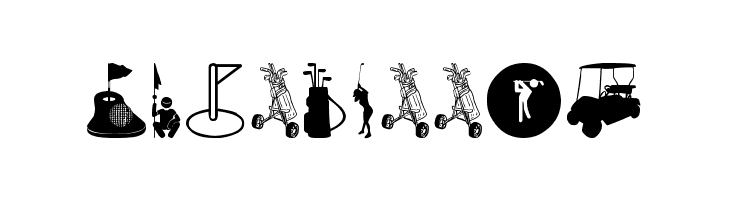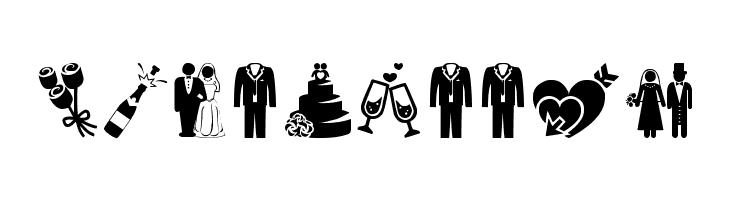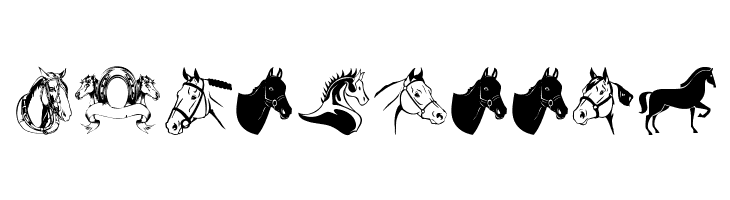
Bold, high-contrast golf-themed icon set with clean silhouettes.
Bold, monochrome icons themed around elections and politics.
A pictographic icon set themed around cleaning and housekeeping.
Bold, decorative farm-themed icon set with clear silhouettes.
Bold pictogram font with scuba diving and underwater activity icons.
Firefighting-themed pictogram icon set with bold, solid silhouettes.
A varied set of light bulb icon illustrations in multiple graphic styles.
Diverse lion icon set with heraldic, geometric, and artistic styles.
Playful, bold wedding-themed icon set with modern styling.
A decorative horse-themed dingbat set with varied styles and motifs.